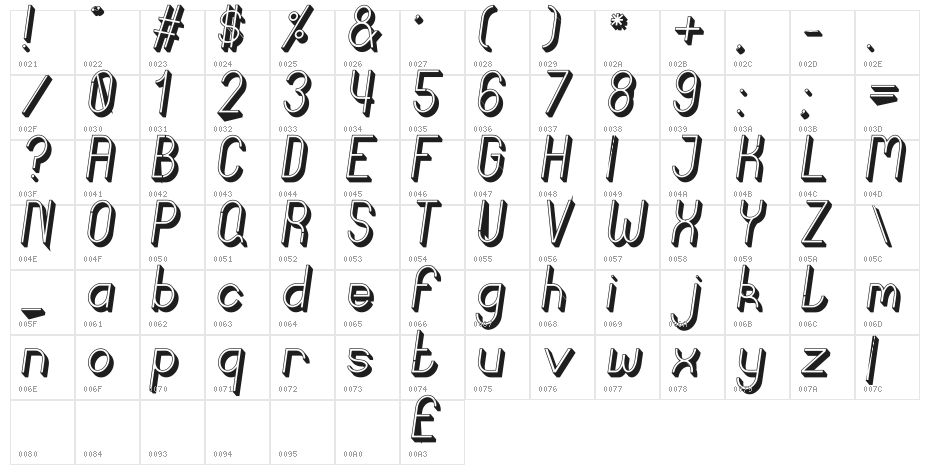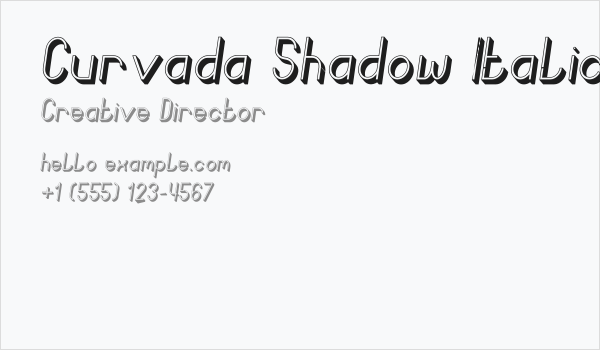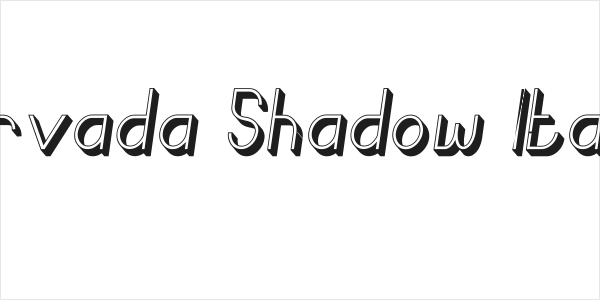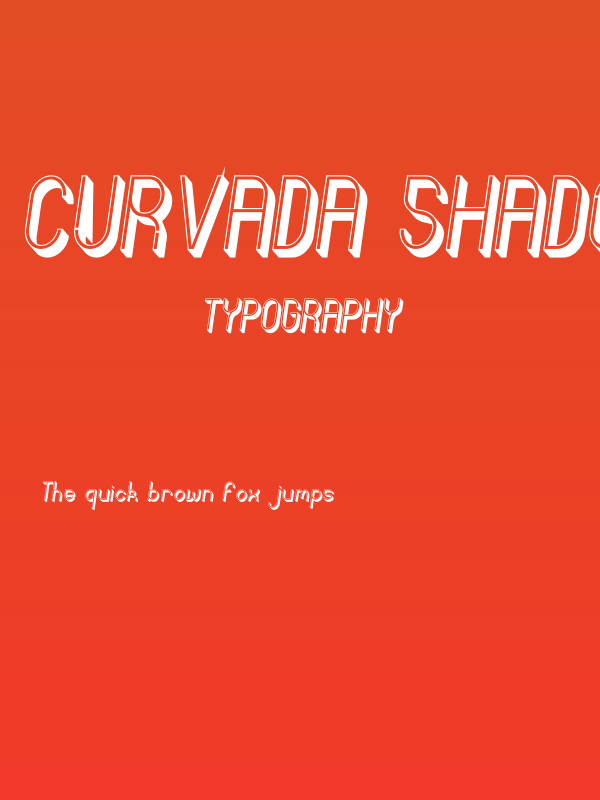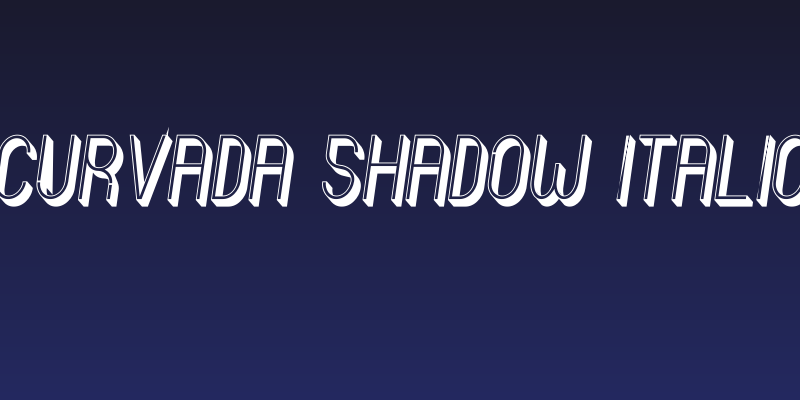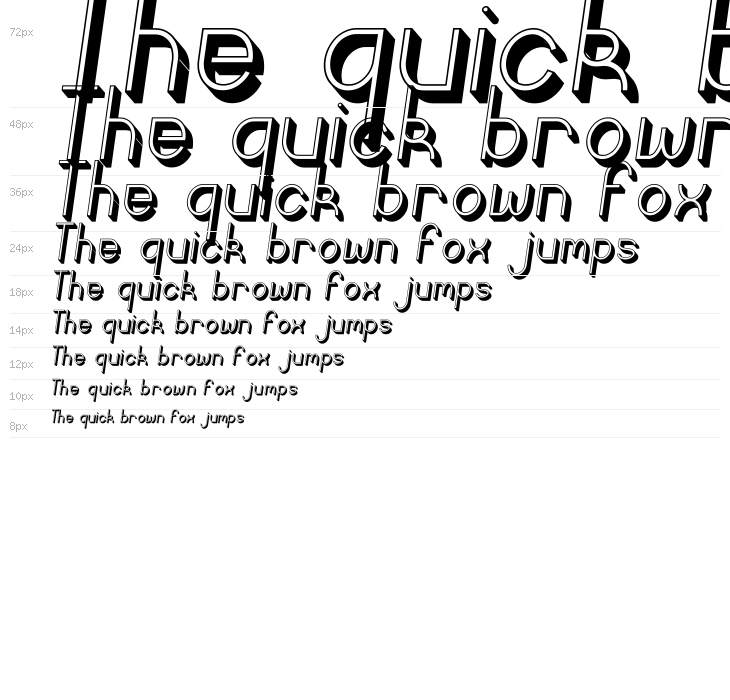
Curvada Shadow Italic Font
Curvada Shadow Italic Description
This font features a bold, italicized style with a distinct shadow effect that gives it a three-dimensional appearance. The characters are slightly condensed, adding a modern and dynamic feel. The uppercase and lowercase letters maintain a consistent design, with rounded edges and a playful yet professional look. The numerals and special characters follow the same aesthetic, ensuring uniformity across all glyphs. The shadow effect adds depth, making it suitable for eye-catching designs.
| Proposed Projects | Ideal for posters, logos, headlines, and any design requiring a bold, attention-grabbing font. |